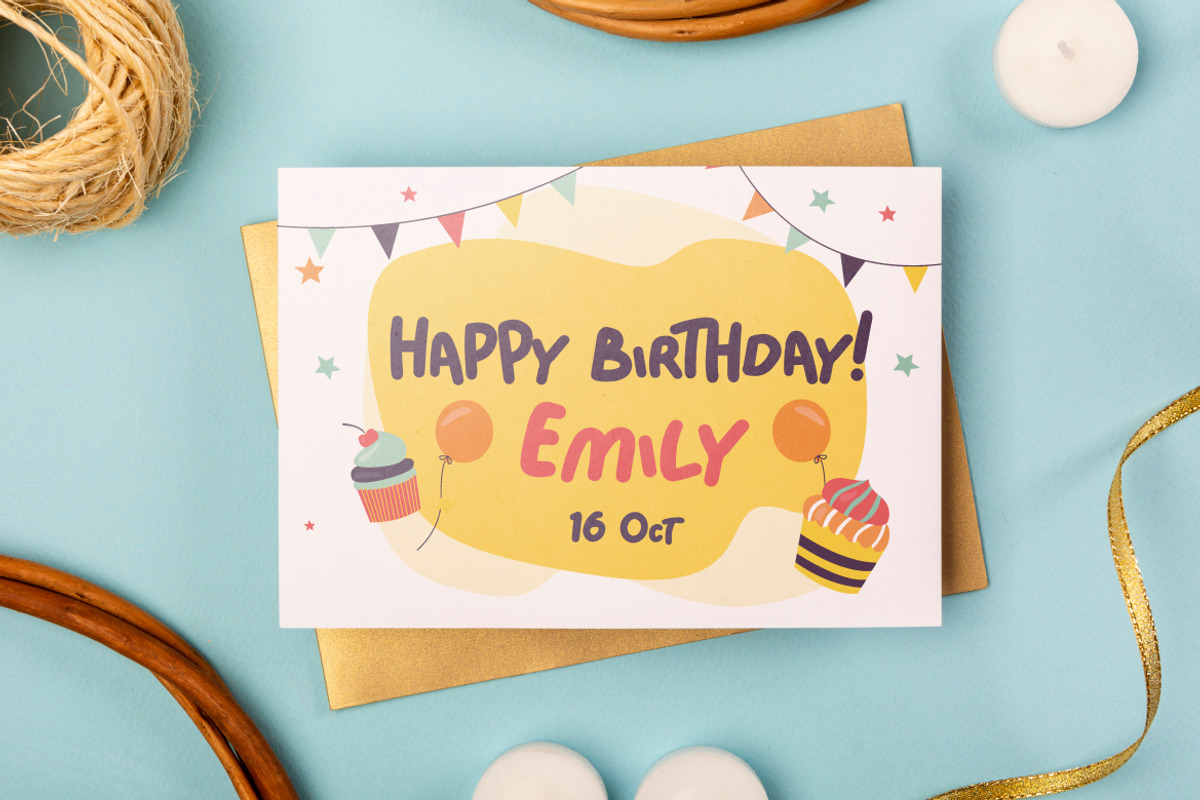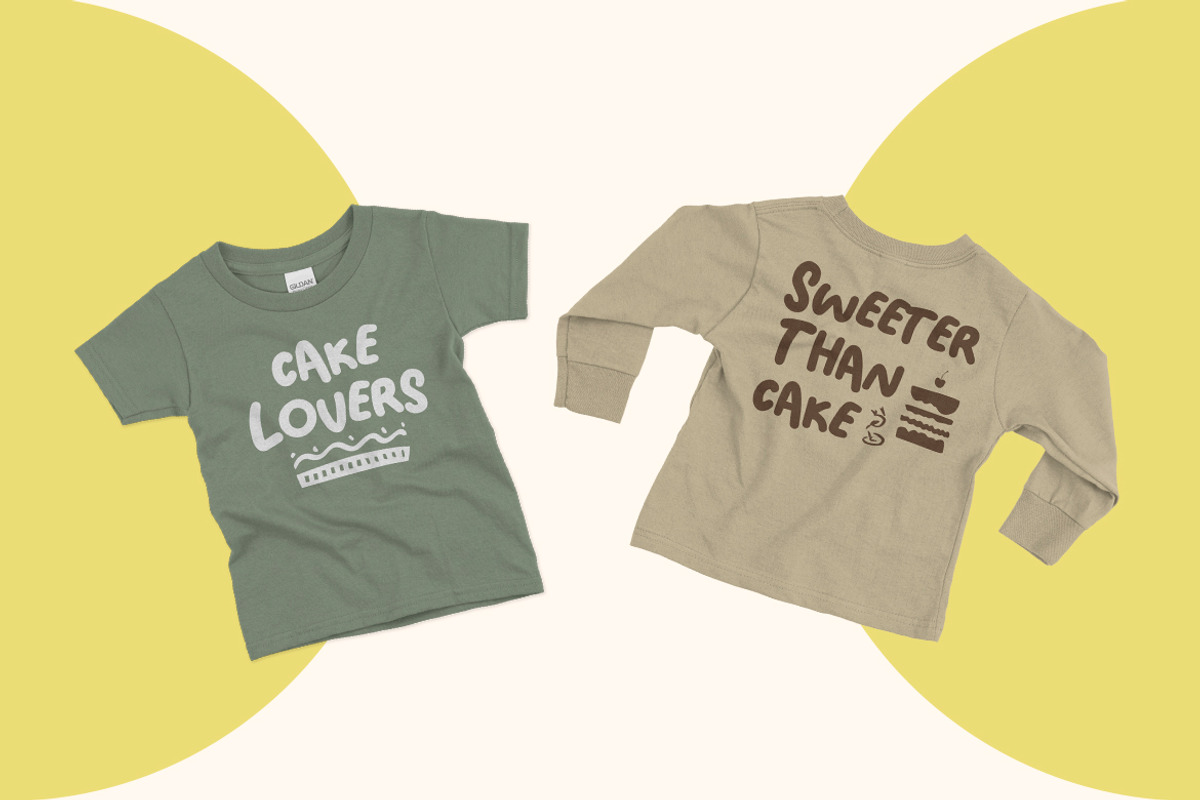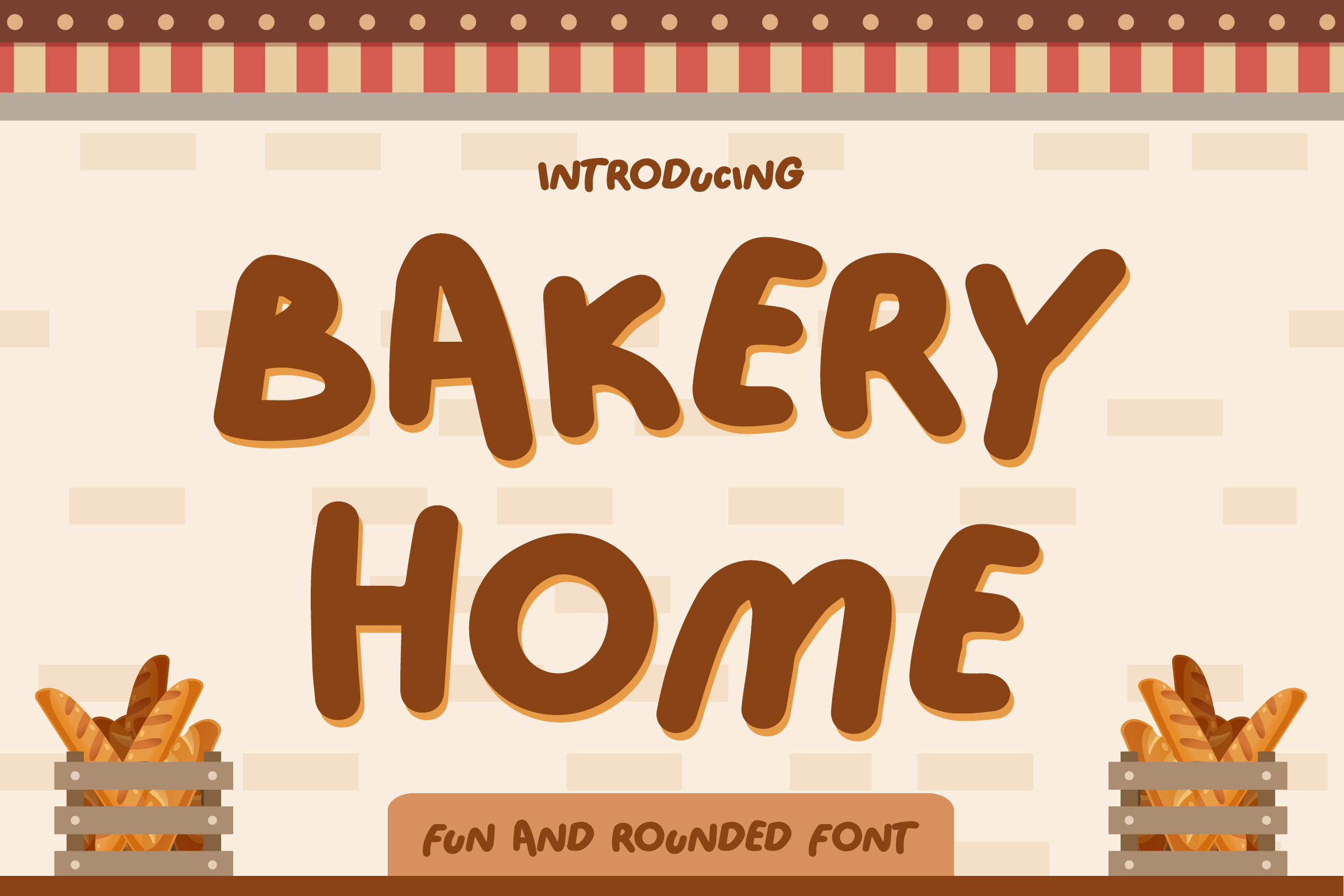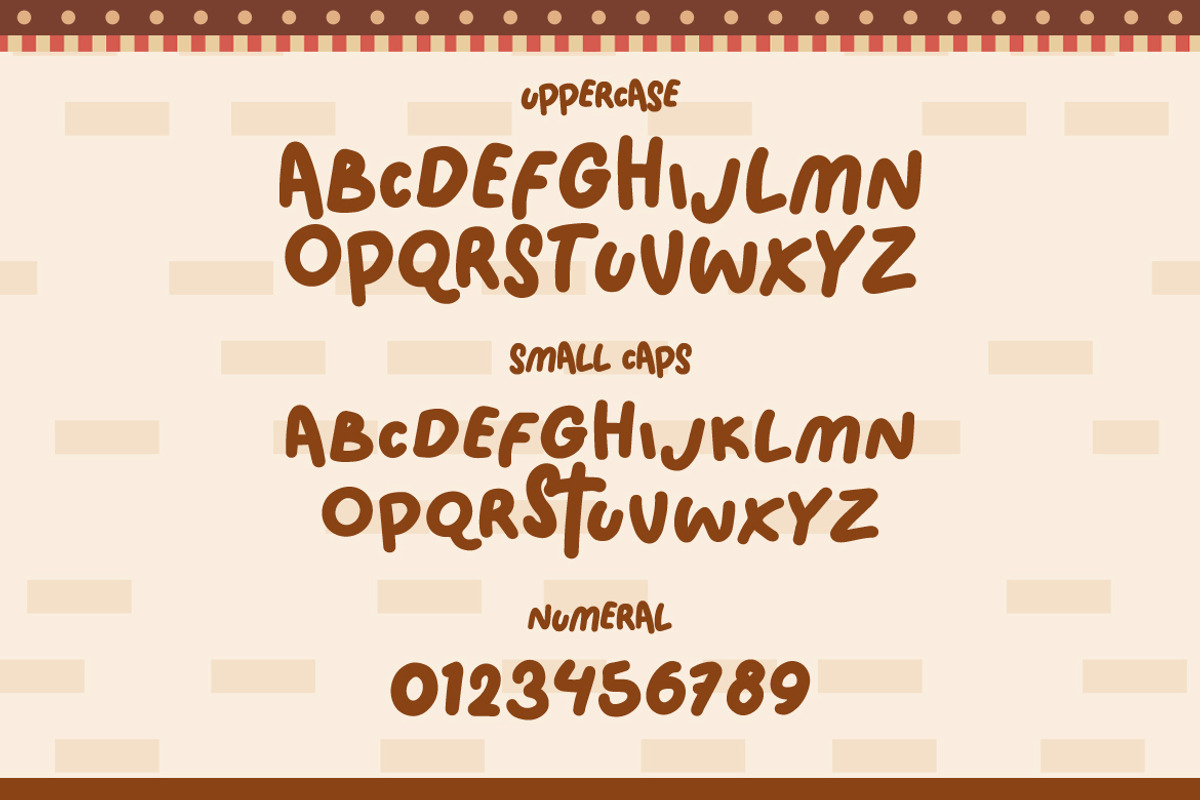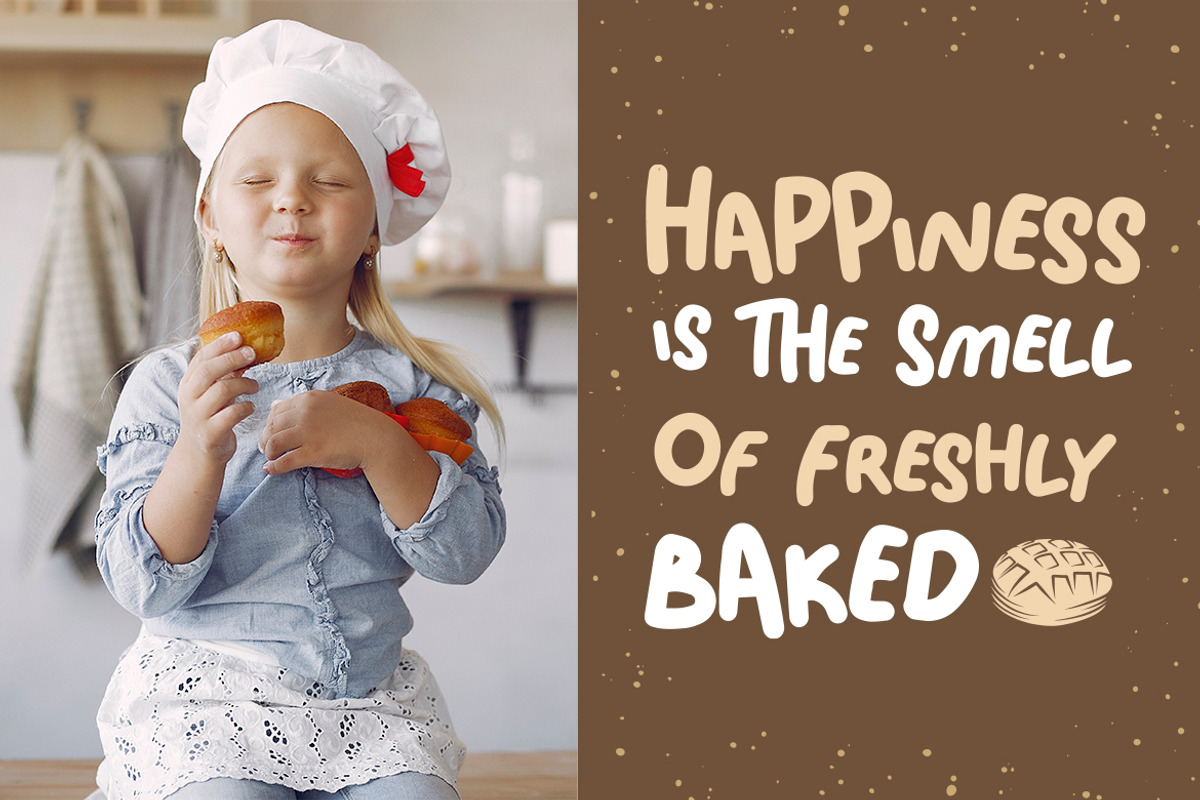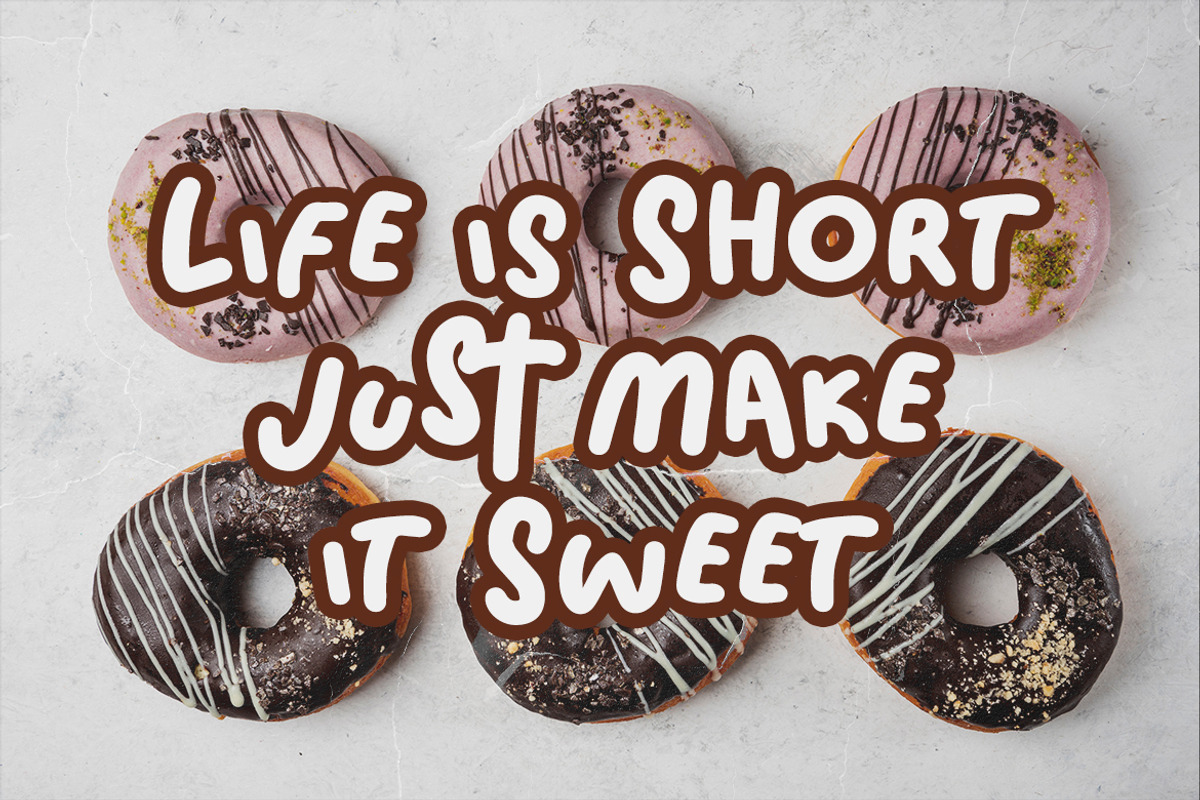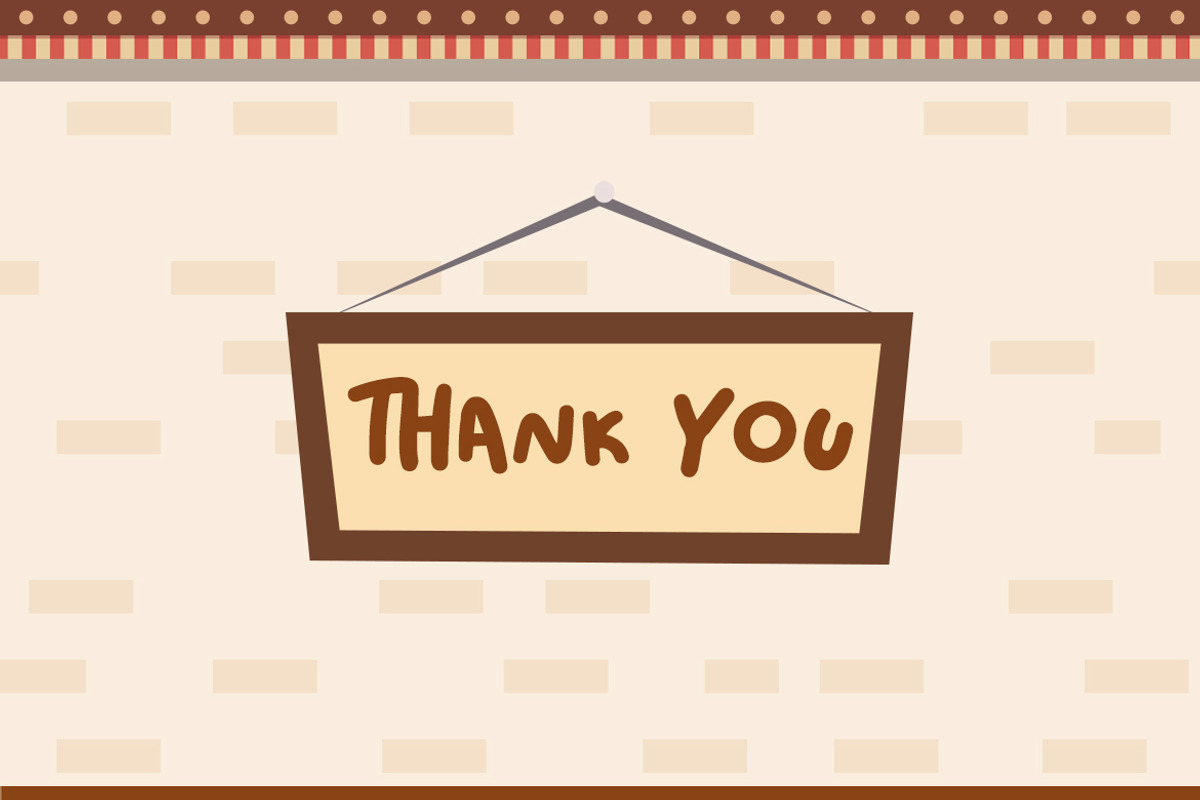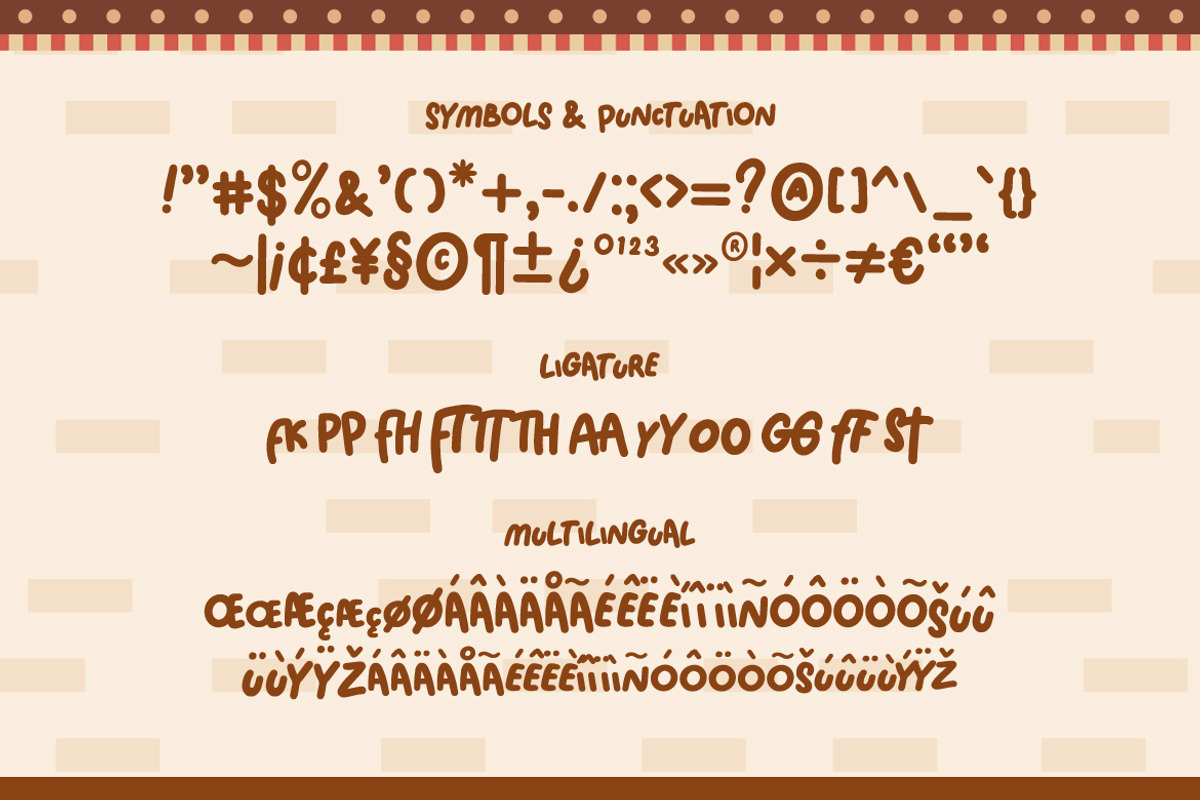
Bakery Home - Funny Font
Bakery Home is a funny, bold and modern handwritten font, carefully handcrafted to become a true favorite. This font will look outstanding in any context, whether it’s being used on busy backgrounds or as a standalone headline! Features:
- Symbols & Punctuation
- Numeral